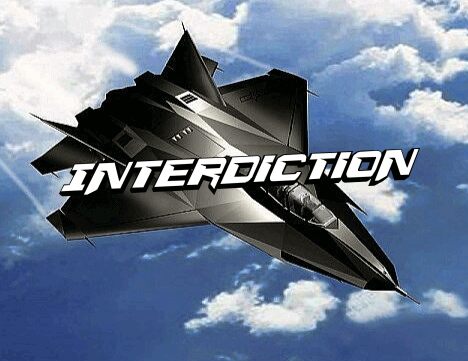
Interdiction
Interdiction, a futuristic display font crafted by Iconian Fonts, exudes a bold, expansive presence. Its distinct, elongated letterforms convey a sense of technological sophistication, lending an air of authority and modernity. The font's expansive width adds visual impact, making it an eye-catching choice for headlines, logos, and attention-grabbing designs. Interdiction's geometric aesthetic and sharp edges evoke a sleek, cutting-edge aesthetic, perfectly suited for projects seeking a contemporary, forward-thinking aesthetic.
Interdiction's versatility shines across diverse design applications. Its striking appearance makes it an excellent selection for branding and packaging, captivating audiences with its futuristic allure. The font's legibility and strong visual presence also lend themselves well to digital interfaces, signage, and editorial layouts, where its expansive forms can command attention and convey a sense of technological innovation.